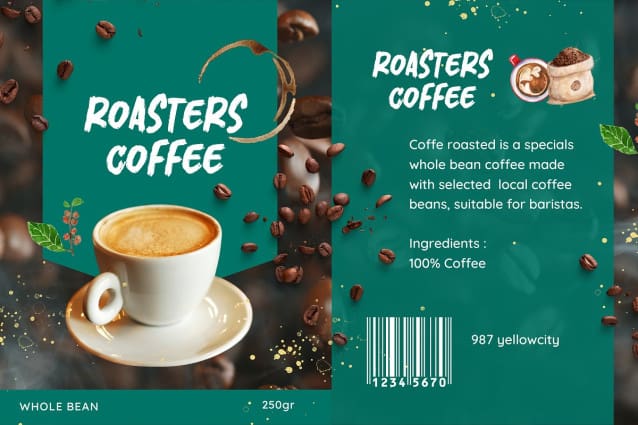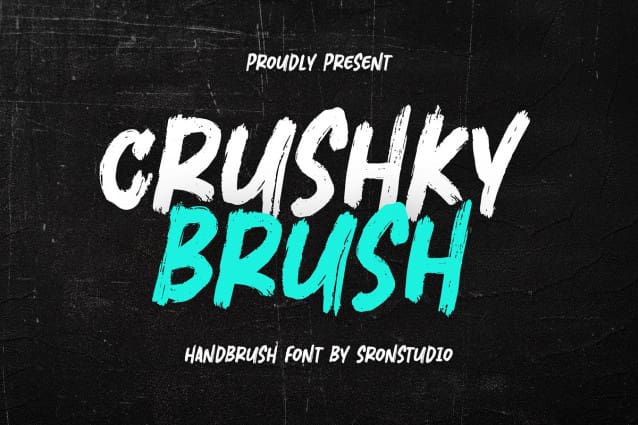
Crushky Brush Font
Crushky Brush Font, a stunning hand brush texture font that is perfect for product design. The rough and textured strokes of the font’s characters create a raw and authentic feel, perfect for those seeking a rugged vibe. “Crushky Brush” is designed to make your product stand out with its bold and captivating presence. Its versatility and flexibility make it an ideal choice for a wide range of product designs. With this font, you can create a unique and unforgettable brand image that speaks to your audience’s sensibilities. So whether you’re launching a new product or rebranding an existing one, let “Crushky Brush” add that extra wow factor to your design.